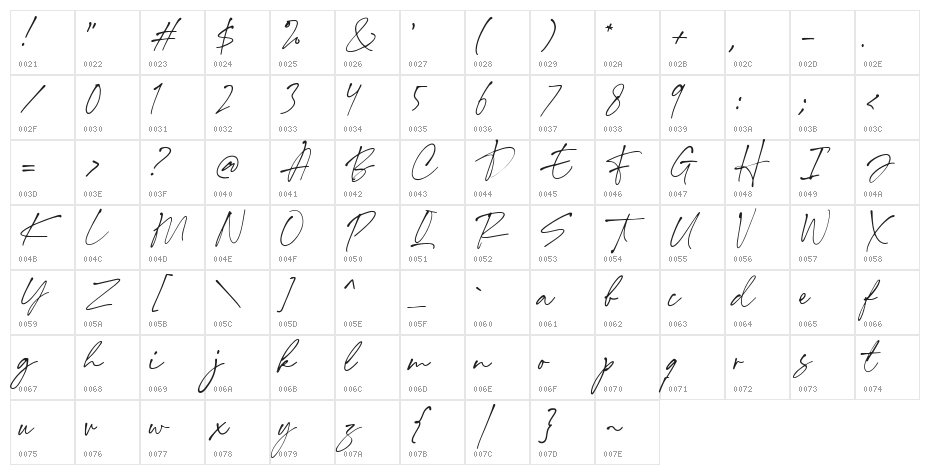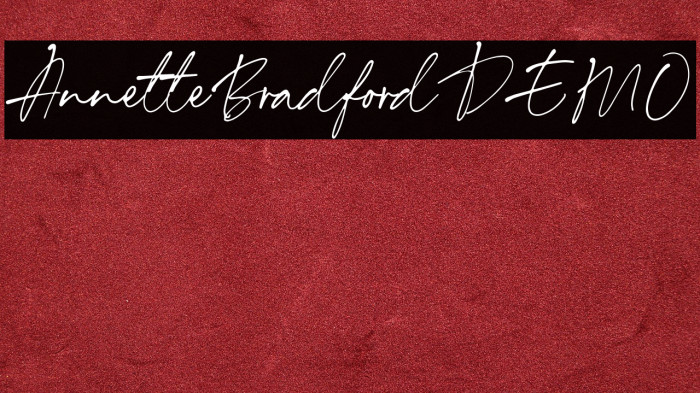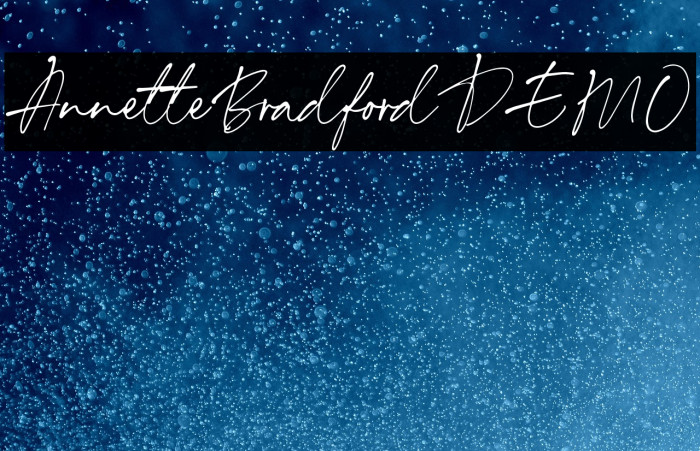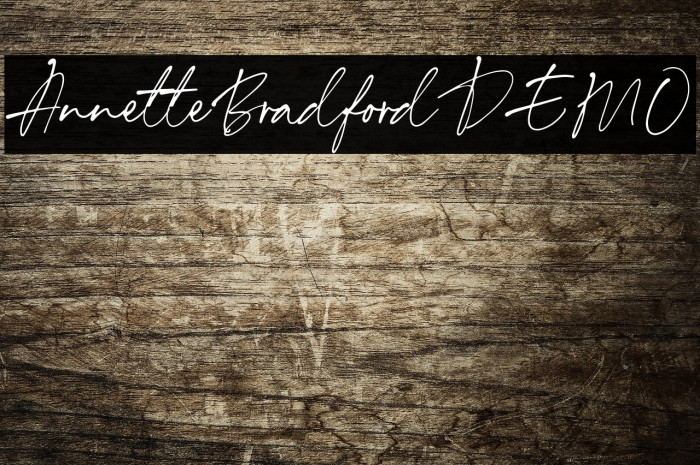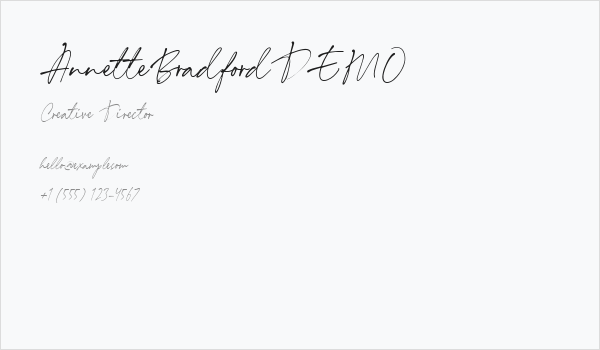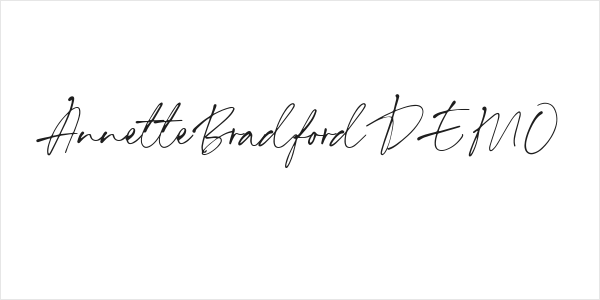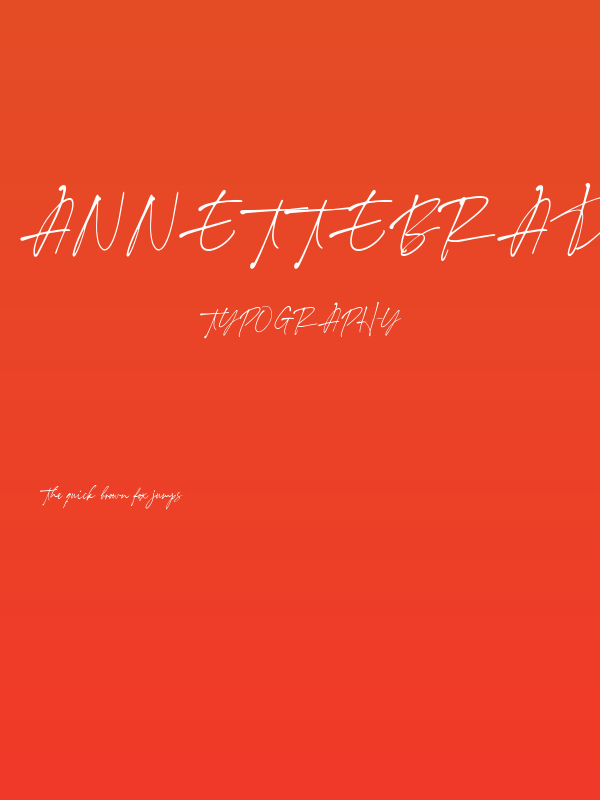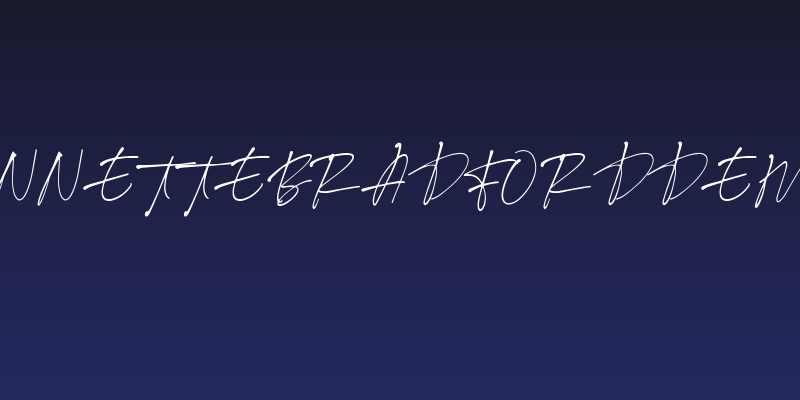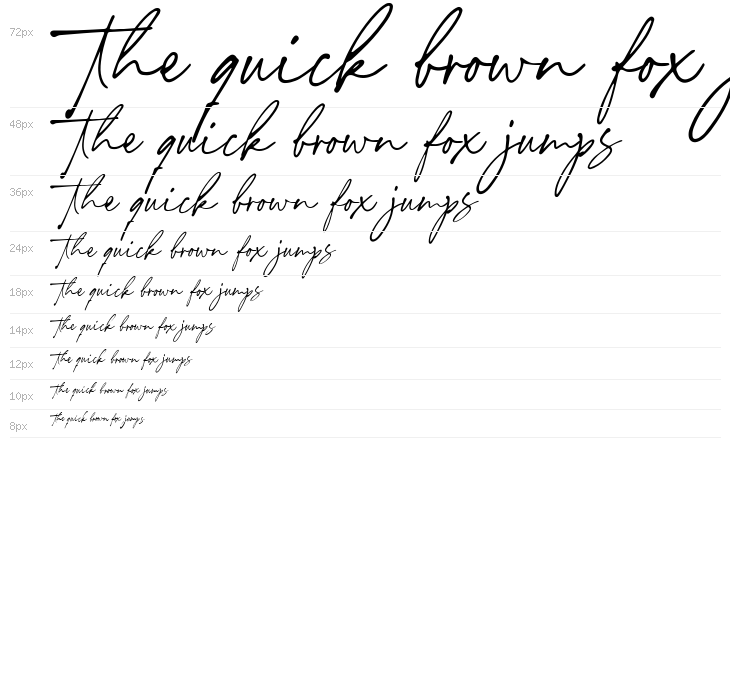
AnnetteBradfordDEMO Font
AnnetteBradfordDEMO Description
This font exudes a dynamic and expressive handwritten style, characterized by its fluid and cursive letterforms. The uppercase letters are slightly more angular and elongated, giving them a distinctive flair, while the lowercase letters maintain a smooth and flowing appearance. The numerals are consistent with the overall script style, featuring slight slants and curves that enhance the handwritten feel. Special characters are integrated seamlessly, maintaining the same energetic and lively aesthetic. The font's overall appearance is both casual and sophisticated, making it versatile for various design contexts.
| Proposed Projects | Ideal for personal branding, invitations, greeting cards, and creative projects that require a personal touch. |